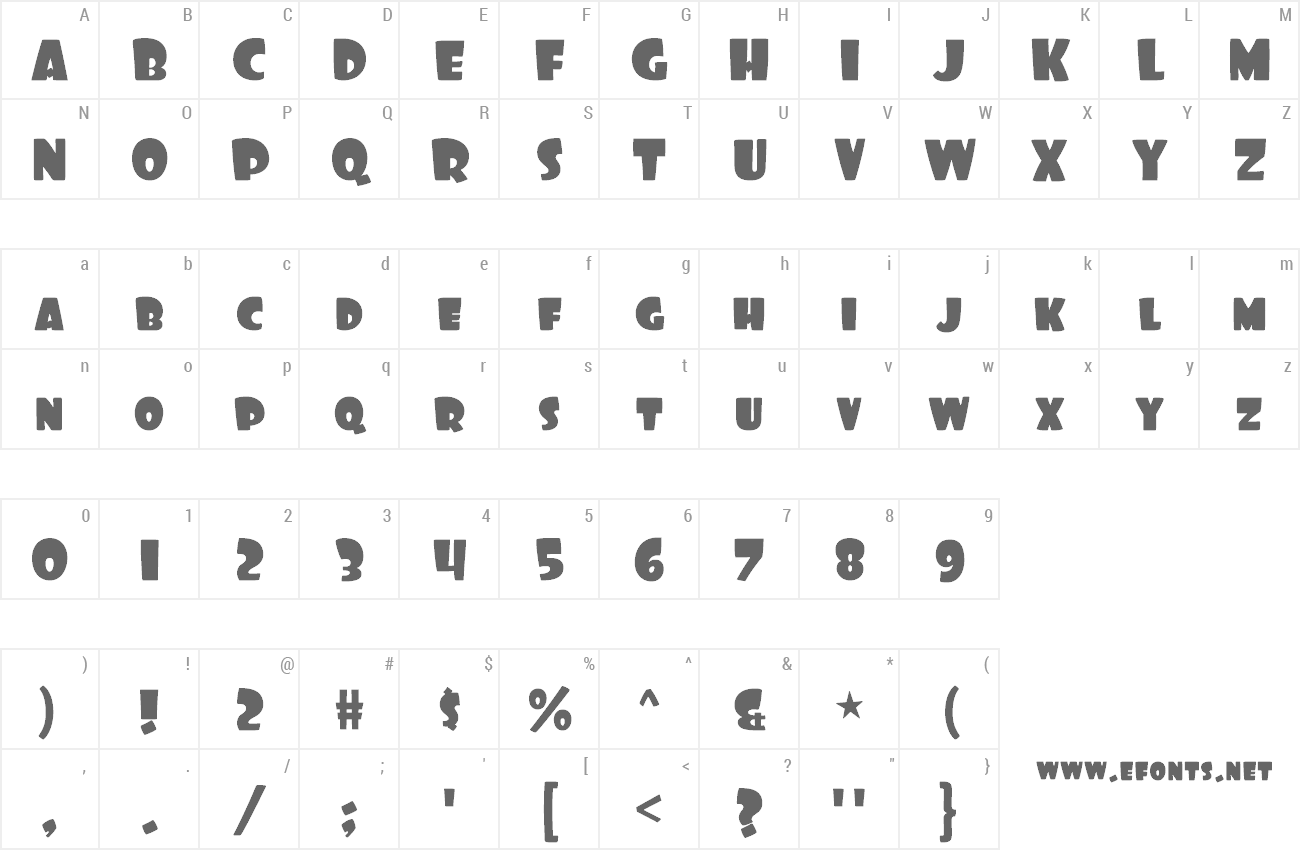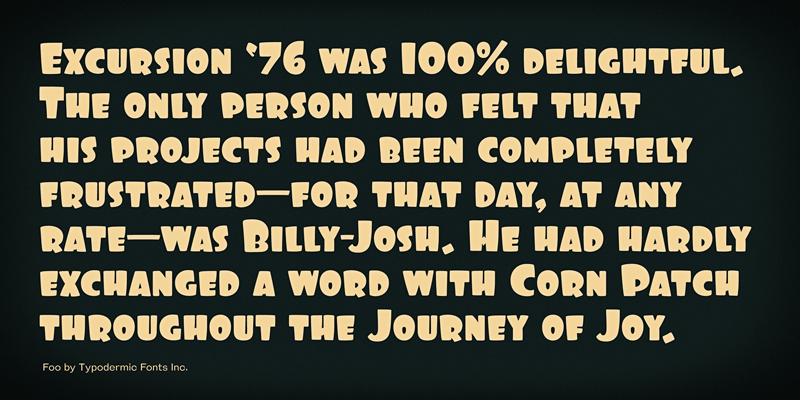
Foo is a fat headliner inspired by an early 20th Century lettering guide. This font includes a license that allows free commercial use: sometimes referred to as a desktop license. This allows you to install the font on a computer and use it to create posters, web graphics, game graphics, t-shirts, videos, signs, logos and more. Read the license agreement for details. If you'd like to embed this font in an app, ebook, on the web or anything that's not covered by the desktop license agreement, visit the link below. You'll find distributors who offer different types of licenses or you can contact me for help. http://typodermicfonts.com/foo/ |